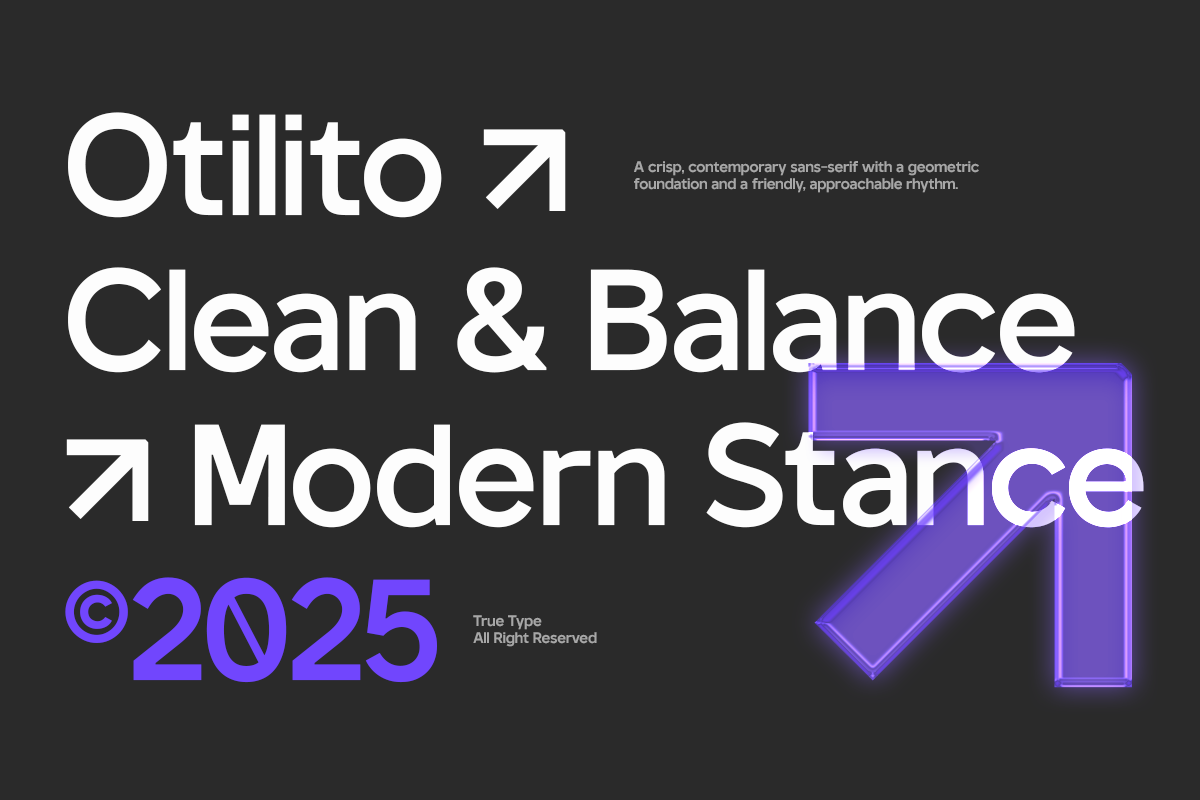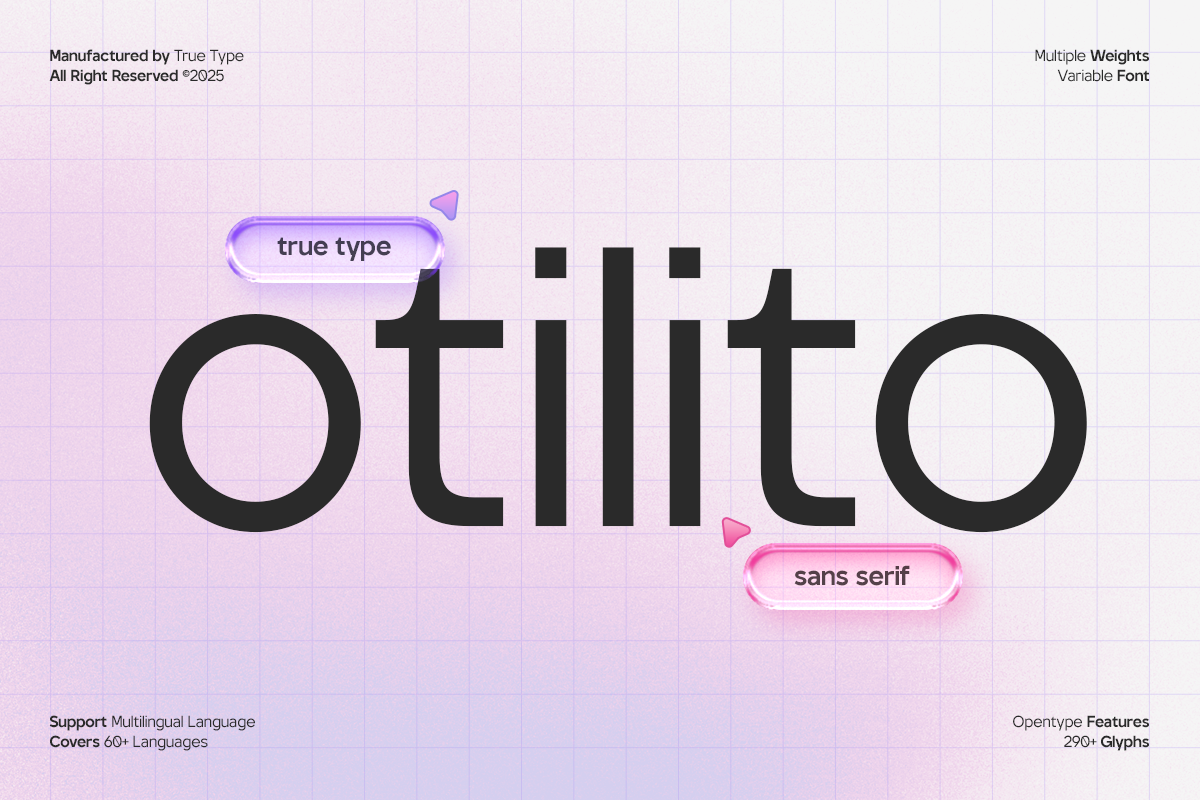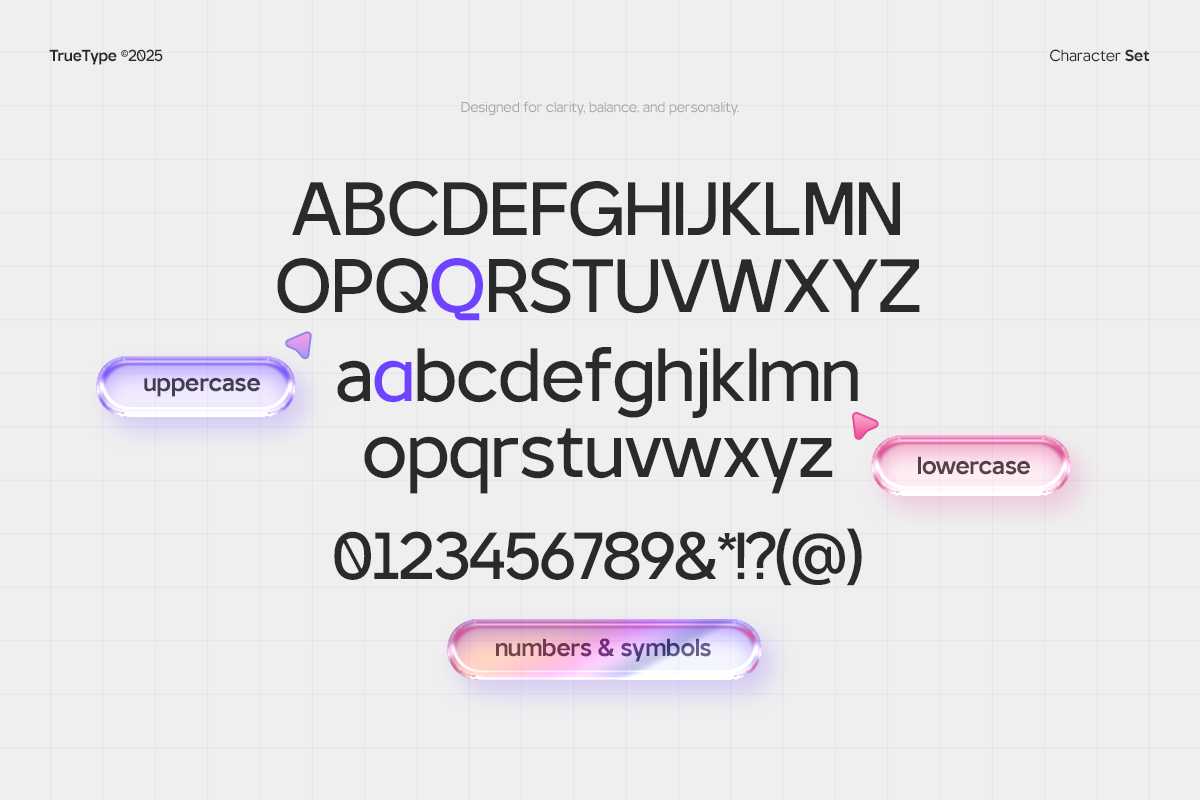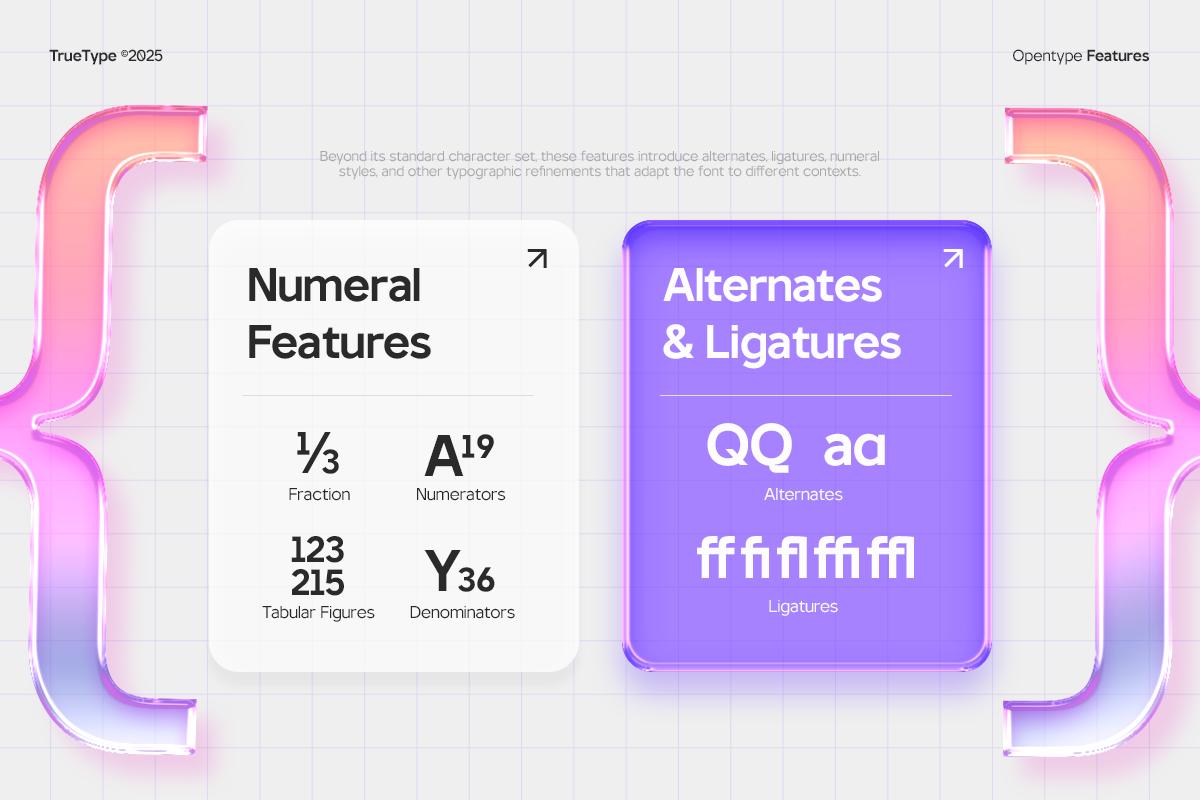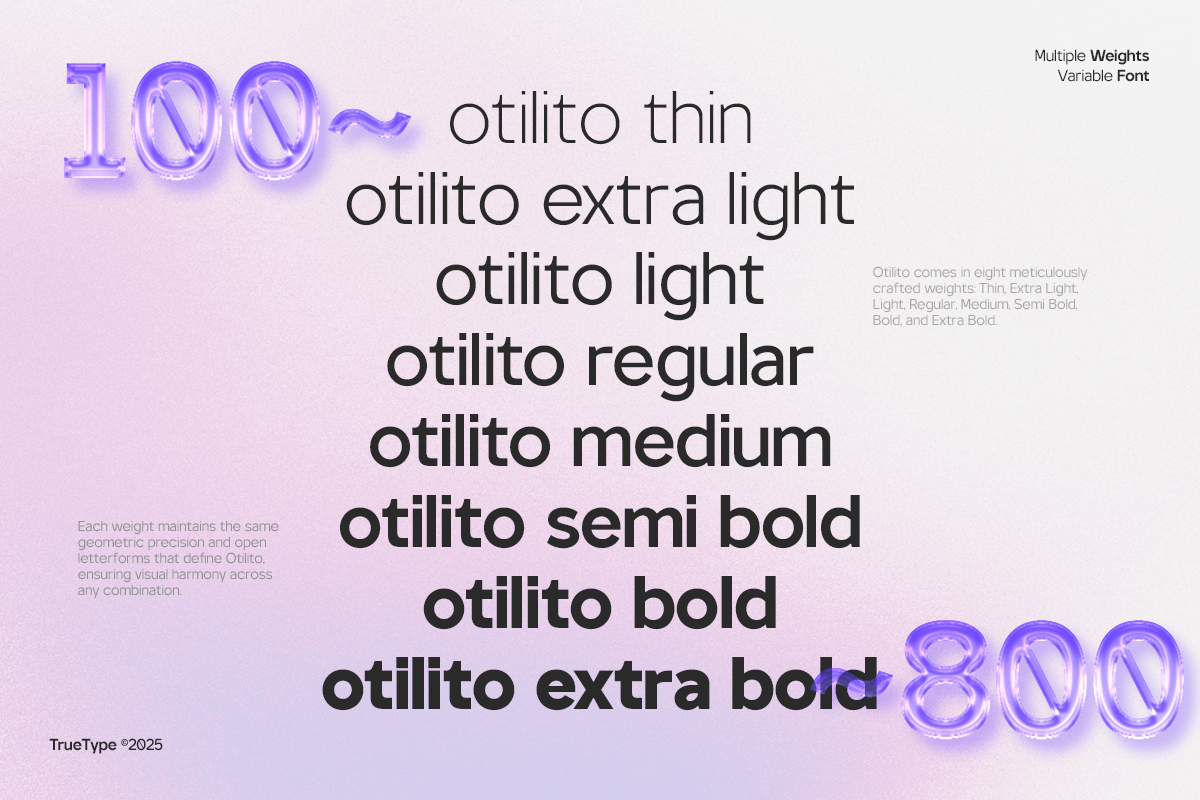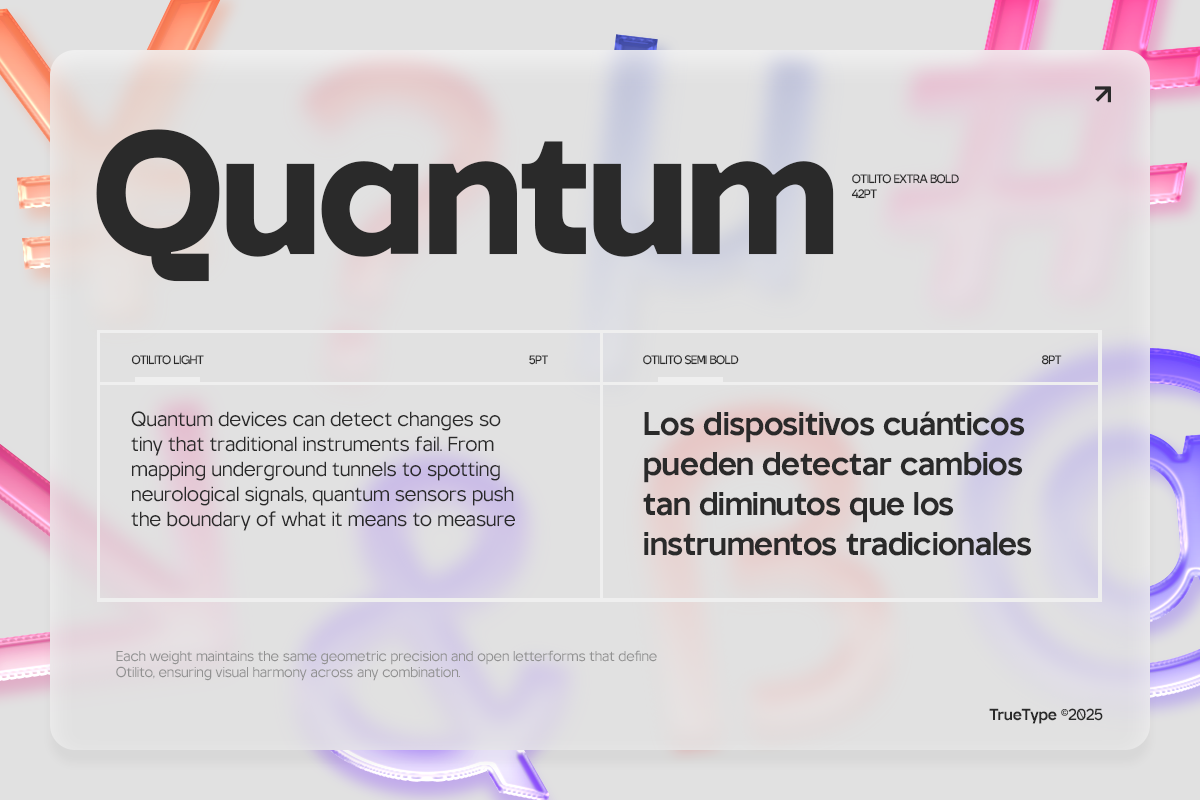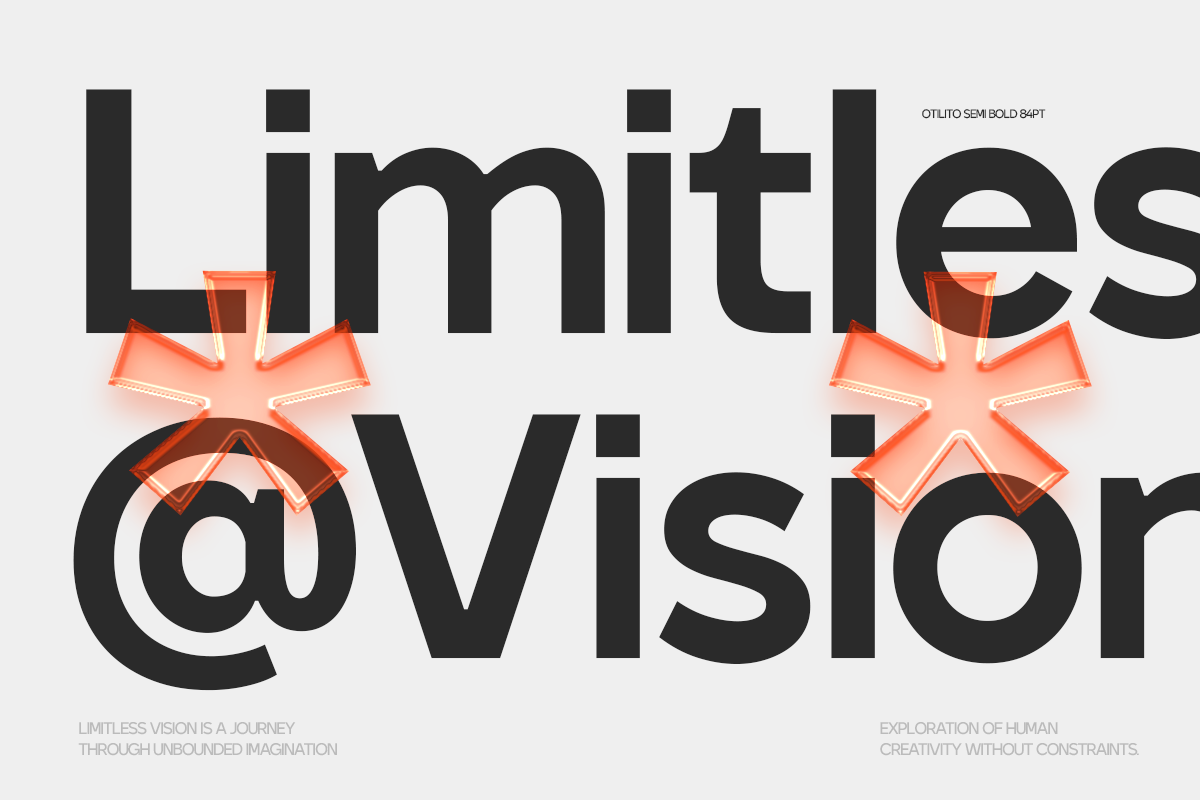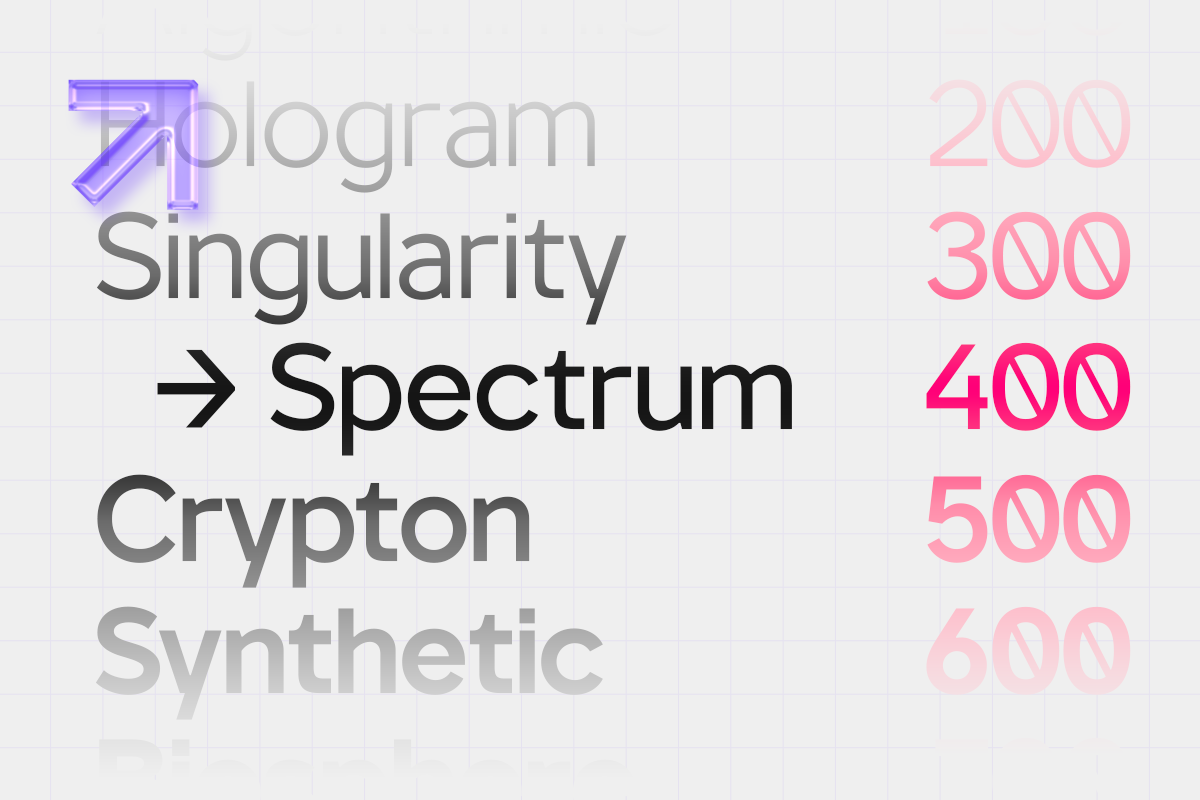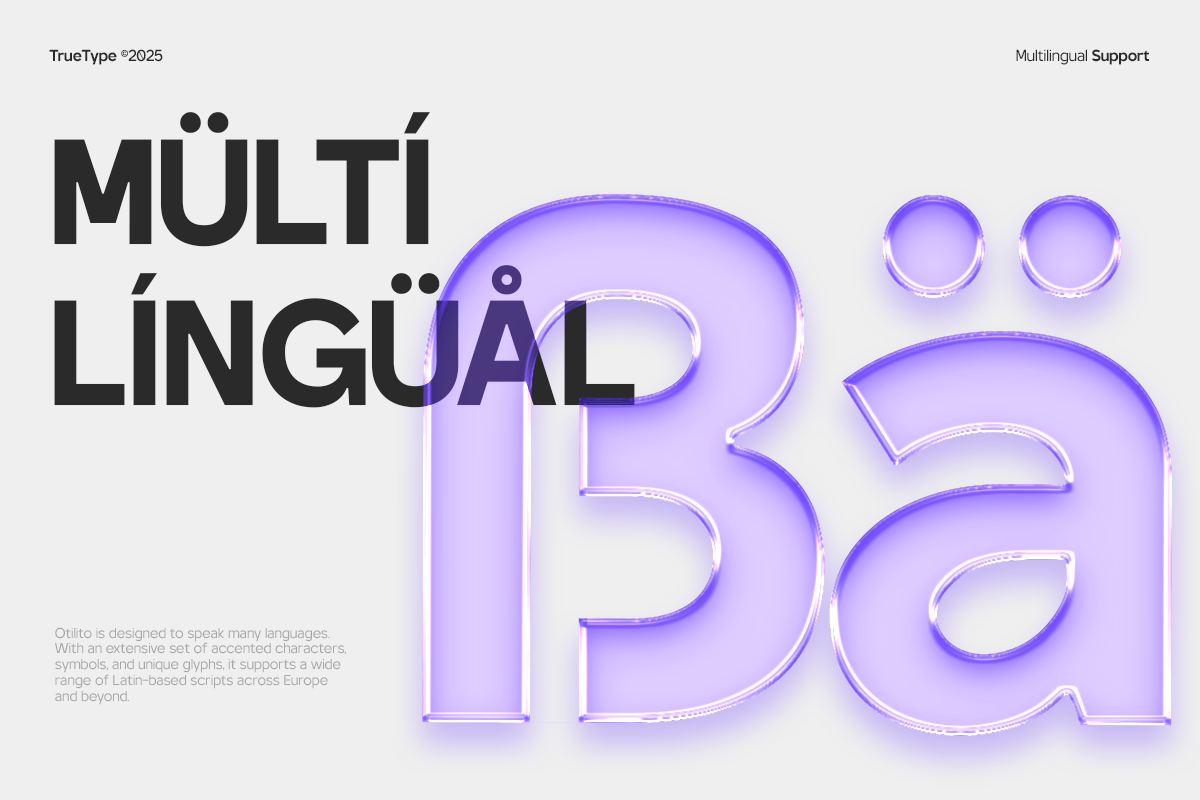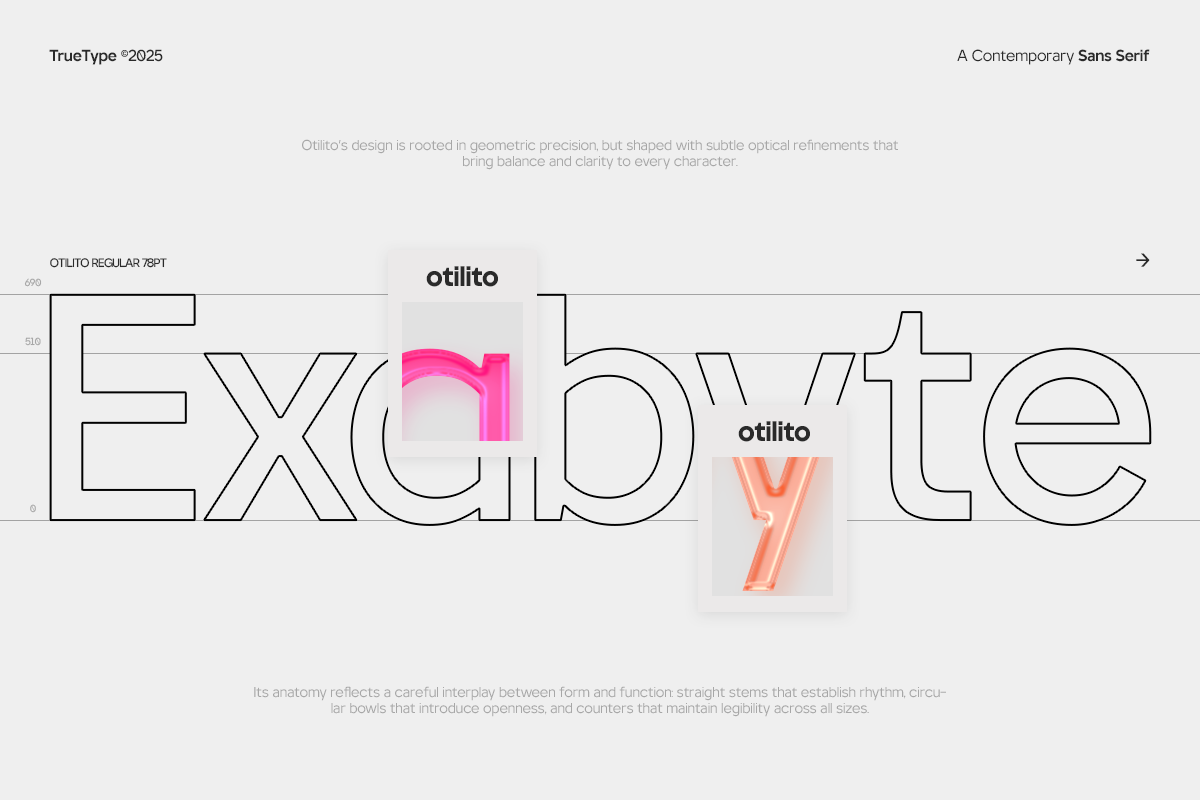
TT Otilito Sans Font Family
TT Otilito is a modern sans serif typeface with semi-grotesque characteristics and a unique personality. Designed to be clean and functional, yet distinctive, it blends geometric balance with subtle quirks that give it charm and flexibility.
It’s a highly usable font family, offering multiple weights and styles to support diverse design needs — from branding and editorial work to digital interfaces and packaging.
Perfect for visual identities, headlines, logos, magazines, and interfaces, TT Otilito delivers clarity without sacrificing character. It's a reliable tool for designers seeking modern aesthetics with a touch of originality.